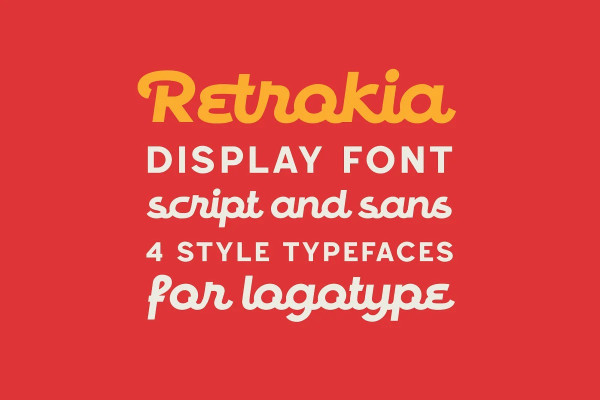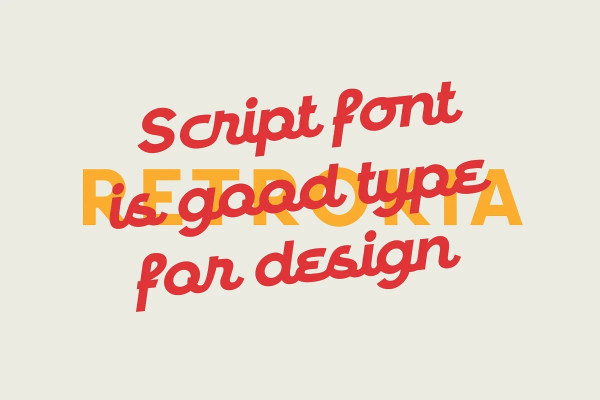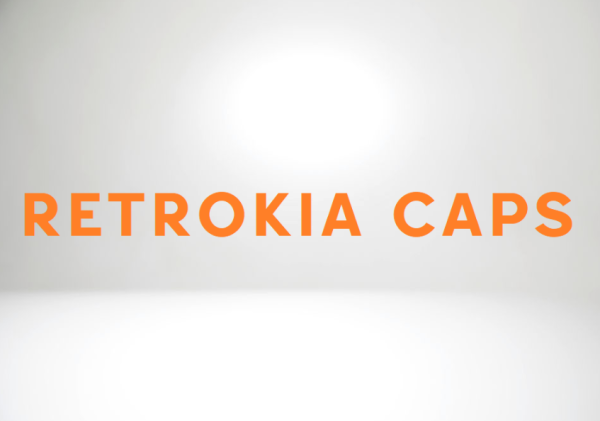
Retrokia Caps Font
Retrokia Caps Font, is a sans serif font in the font collection called “Retrokia”, it is a display font for logotype. These collections contain script and sans serif font. Every font comes with 4 style typefaces (regular, rounded, rough and textured). This script font includes some alternates and ligatures. The Retrokia matches apply in some designs such as the logo, poster, label, badge, packaging, t-shirt, branding, quotes and more custom design.